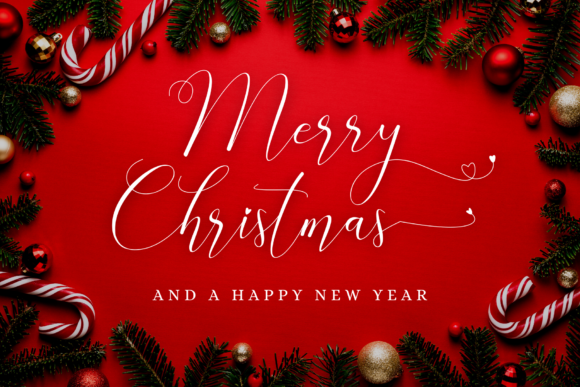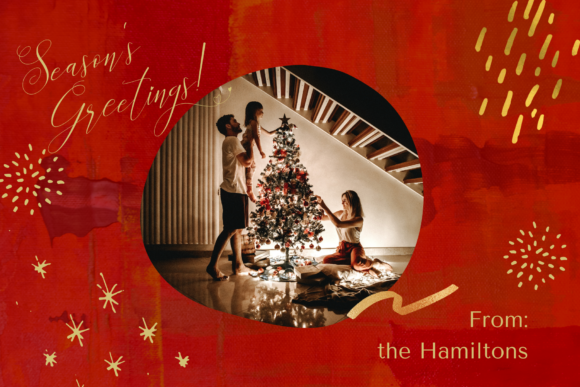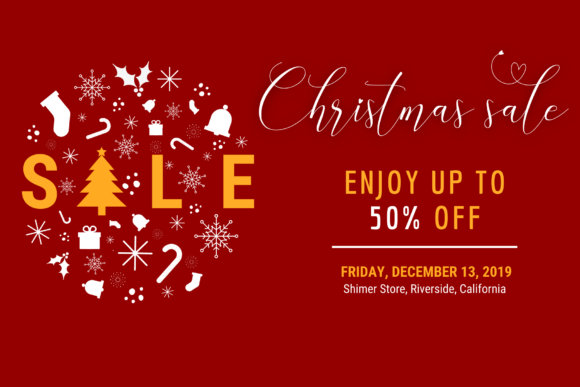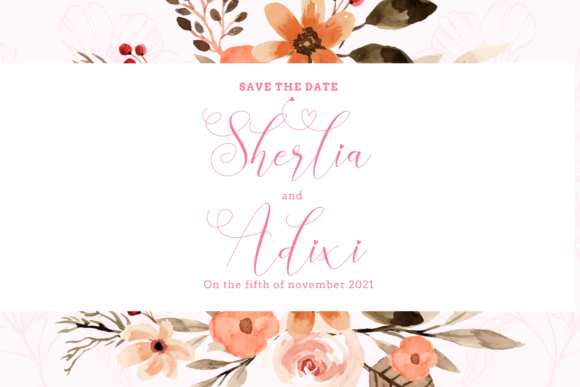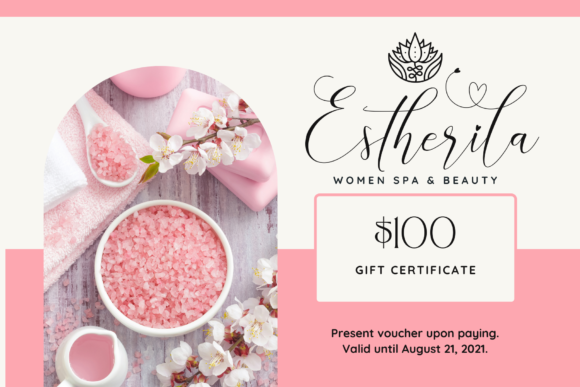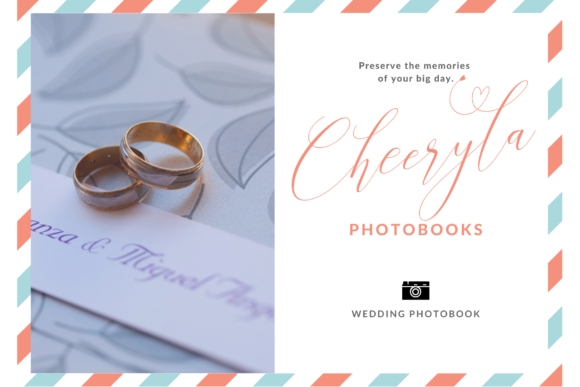
Unleash the Magic of the Season with Christmas Starlight Font
As the snowflakes start to fall and the twinkling lights adorn the streets, I find myself scribbling down festive quotes in my favorite notebook, dreaming up the perfect holiday designs. The creative spark is ignited, and I know it’s time to break out the special tools of the trade.
One of my go-to fonts for adding a touch of whimsy and wonder to my designs is the Christmas Starlight Font. This enchanting, handwritten font is a timeless treasure that brings a sense of magic to any project. Whether I’m crafting eye-catching logos, branding, or quotes, Christmas Starlight Font is the perfect choice to make my creations truly shine.
With its PUA encoding, designers can easily access all the glyphs and swashes, making it a valuable addition to any design toolkit. The Christmas Starlight Font is a must-have for anyone looking to add a touch of holiday cheer to their designs, and I’m excited to share its secrets with you.
Christmas Starlight Font Key Features
- Unique Characteristics: Features a magical, starry night sky design with intricate details and a sense of movement, perfect for festive designs.
Designer Review: Christmas Starlight Font
✨ I have to say, I’m really impressed with the overall aesthetic of the Christmas Starlight Font. The combination of cursive and modern elements creates a unique and eye-catching design that’s perfect for holiday-themed projects. The font is highly customizable, making it easy to adjust the size, color, and style to fit your needs.
- ✨ Beautiful combination of cursive and modern elements
- ✨ Highly customizable
- ✨ Suitable for holiday-themed projects
⚠️ However, I do have a few reservations about the font’s usability. The design can be a bit overwhelming, especially at smaller font sizes. Additionally, the font may not be suitable for projects that require a more formal or traditional tone. It’s also worth noting that the font may not be as readable on certain devices or screens.
- ⚠️ Can be overwhelming at smaller font sizes
- ⚠️ May not be suitable for formal or traditional projects
- ⚠️ May not be readable on certain devices or screens
Overall, I think the Christmas Starlight Font is a great choice for holiday-themed projects or designs that require a touch of whimsy. While it may have some limitations, the font’s unique design and high level of customization make it a valuable addition to any designer’s toolkit.
For the most out of the Christmas Starlight font, use it for festive projects like Christmas cards, gift tags, or holiday invitations. You can also use it for titles, headings, and quotes in your designs.